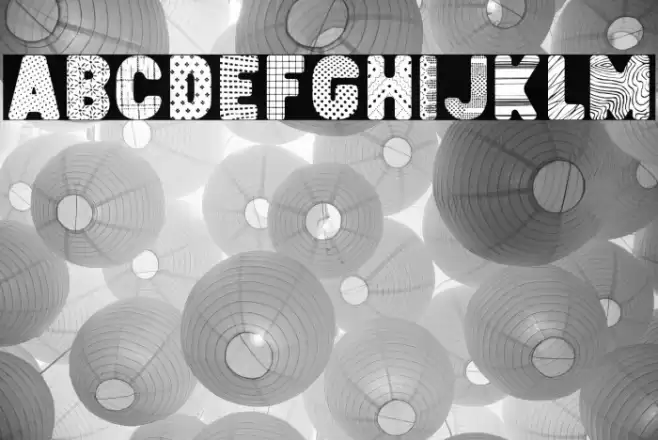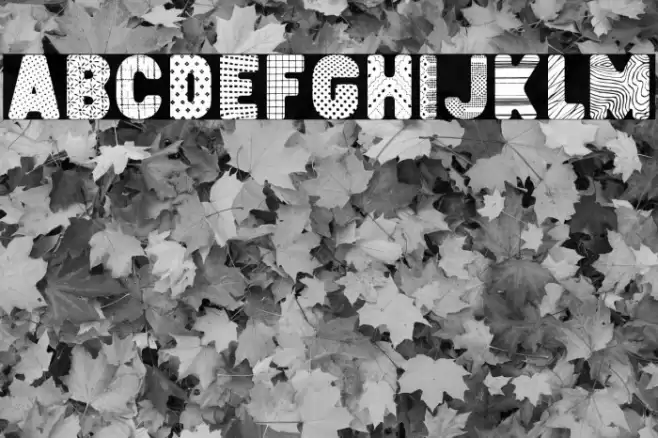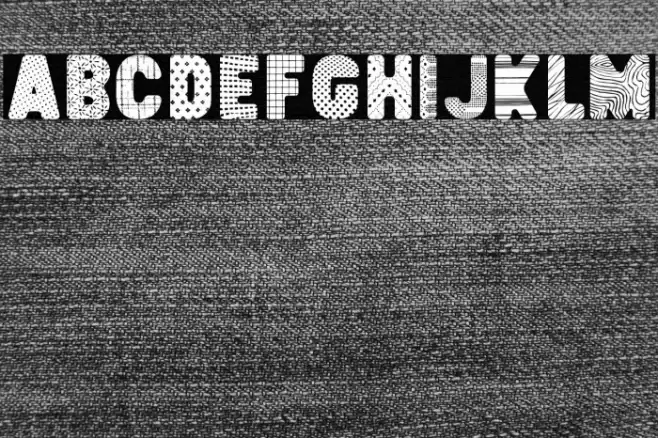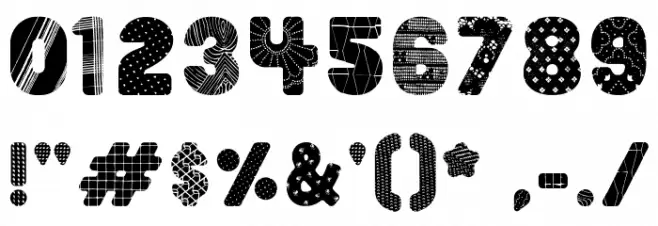
Elsewhere Pattern Regular Font
Elsewhere Pattern Regular Description
This font features a unique and playful design with each character filled with different patterns such as polka dots, stripes, grids, and abstract shapes. The bold, blocky letters are highly decorative, making them stand out with their intricate internal designs. The uppercase and lowercase letters maintain a consistent style, while the numbers and special characters follow suit with equally engaging patterns. This font is ideal for projects that require a fun and eye-catching aesthetic, offering a creative twist to standard typography.
A decorative font with bold, patterned characters ideal for playful designs from Decorative fonts.
- Proposed Projects: Perfect for posters, children's books, creative branding, and event invitations.